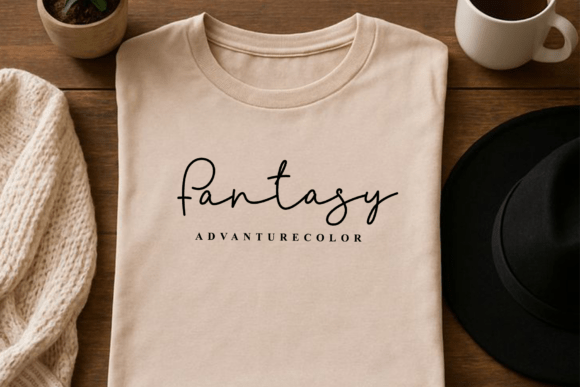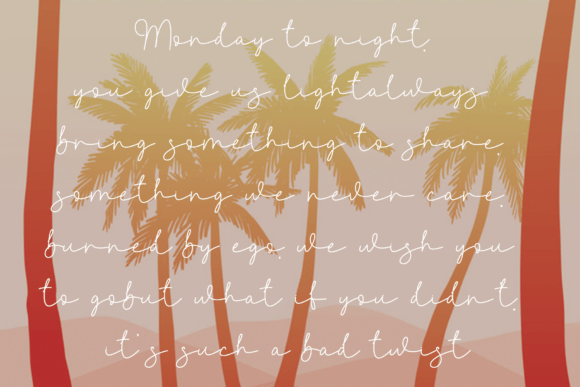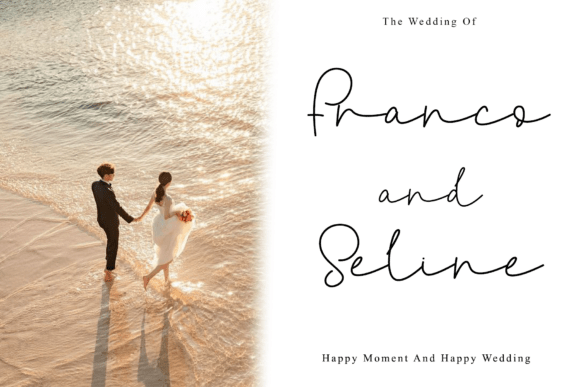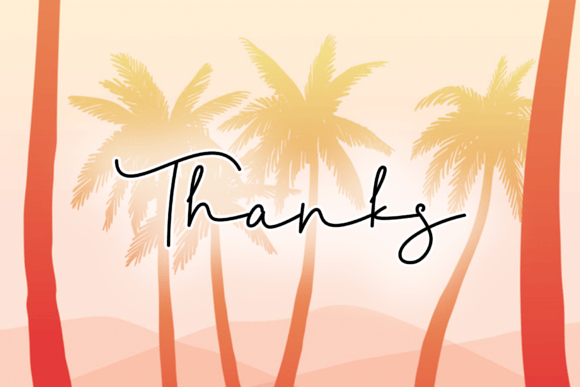
The Perfect Font for a Sunny Branding
Have you ever stumbled upon a design that makes you feel like you’ve found a treasure? A font that’s so beautiful, it transports you to a world of creativity and inspiration? That’s exactly what happens when you see the Fashion Sunshine Font in action. This stunning script font is a masterclass in elegance and sophistication, with its sweeping, looping ascenders that evoke the feeling of a custom-made art piece.
As a designer, you know how crucial the right font can be in making a brand stand out. Fashion Sunshine Font is the perfect choice for artisanal food branding, boutique product packaging, and upscale lifestyle marketing. Its unique blend of calligraphy and organic style makes it a standout in the world of typography, and its versatility is unmatched.
Fashion Sunshine Font Key Features
- Unique Characteristics: Fashion Sunshine Font features a unique blend of modern and vintage elements, with intricate details and ornaments that evoke a sense of luxury and sophistication.
Designer Review: Fashion Sunshine Font
Overall, I think the Fashion Sunshine Font has a lot going for it. ✨ Its whimsical, hand-drawn style captures the essence of summer and is perfect for branding or design projects that need a playful touch. The font’s fluid lines and varied letterforms add a sense of movement and energy, making it ideal for headings and titles.
Here are some of the font’s standout features:
- Unique, hand-drawn style that’s perfect for adding a personal touch to designs.
- Wide range of ligatures and letterforms that add to the font’s playfulness.
- Perfect for use in headings, titles, and other design elements where a bold, eye-catching font is needed.
- ⚠️ The font may be difficult to read in smaller sizes or at a distance, as the letterforms can become indistinct.
- ⚠️ The font’s playfulness may not be suitable for all design projects, particularly those that require a more formal or professional tone.
Overall, I think the Fashion Sunshine Font is a great addition to any designer’s toolkit, but it’s essential to use it thoughtfully and in the right context. With its unique style and varied letterforms, it’s perfect for adding a touch of whimsy and personality to designs.
For best results, use the font in bold and with a large font size to make the most of its playful and energetic vibe.
The Fashion Sunshine Font is perfect for:
1. Fashion and beauty brands looking to add a touch of playfulness to their branding.
2. Social media graphics and posts that require a fun and energetic vibe.
3. Marketing materials such as flyers, brochures, and posters.
4. Blog posts and articles that require a lighthearted and
Compared to Fashion Sunshine Font, Great Vibes Font has a more refined and sophisticated look, making it suitable for high-end designs. While Fashion Sunshine Font is more playful and youthful, Great Vibes Font exudes a sense of maturity and class.